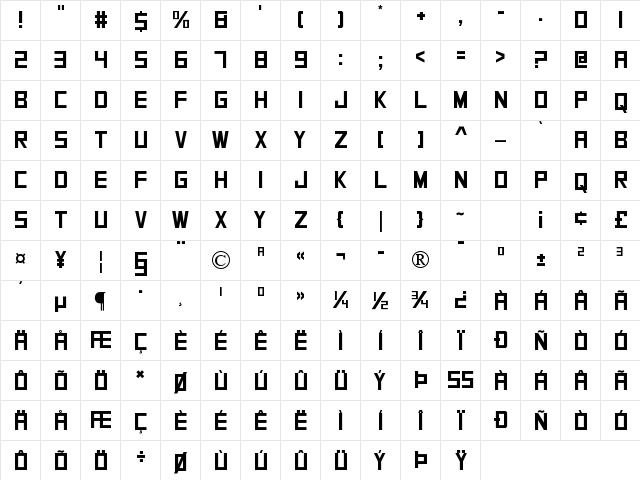
SquareFont Regular
Design Context for SquareFont Typeface
SquareFont offers clean, dependable letterforms without strong stylistic allegiance, making it a practical choice for designers who need flexibility.
Pro Tip: Pair SquareFont with a font of contrasting weight or personality to build a more expressive typographic hierarchy.